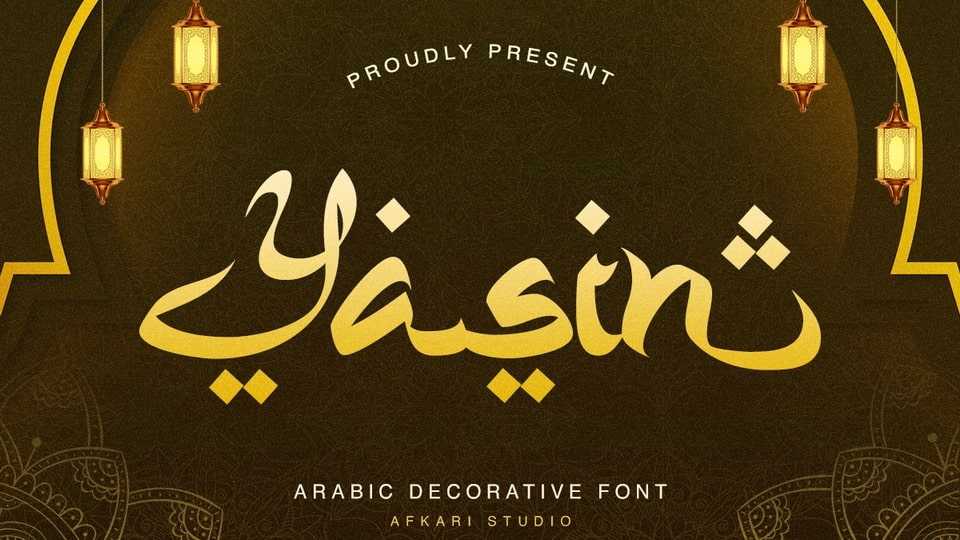
Download Yasin font, an exquisite Arabic decorative typeface that embodies the charm and intricacy of traditional Arabic calligraphy.
Designer: Afkari Studio